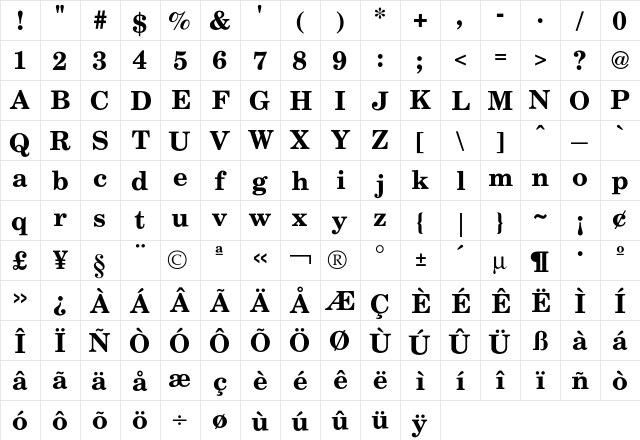
Century SchoolBold Font Preview
Century SchoolBold
Design Context for Century Typeface
Century offers clean, dependable letterforms without strong stylistic allegiance, making it a practical choice for designers who need flexibility. The heavy weight commands attention and anchors typographic hierarchies.
Pro Tip: Use Century in both headline and body roles to test its range before committing to a single application.